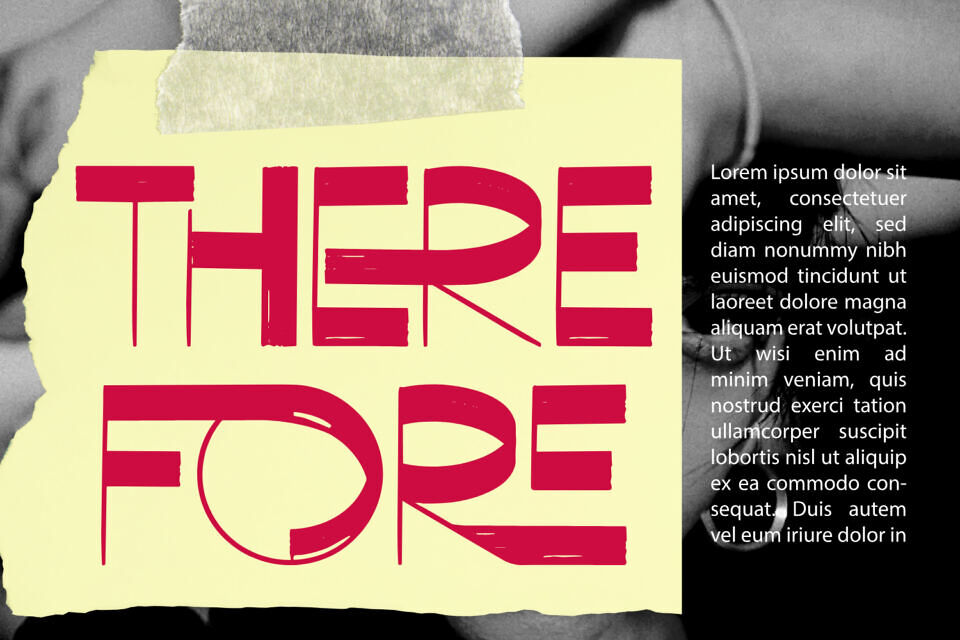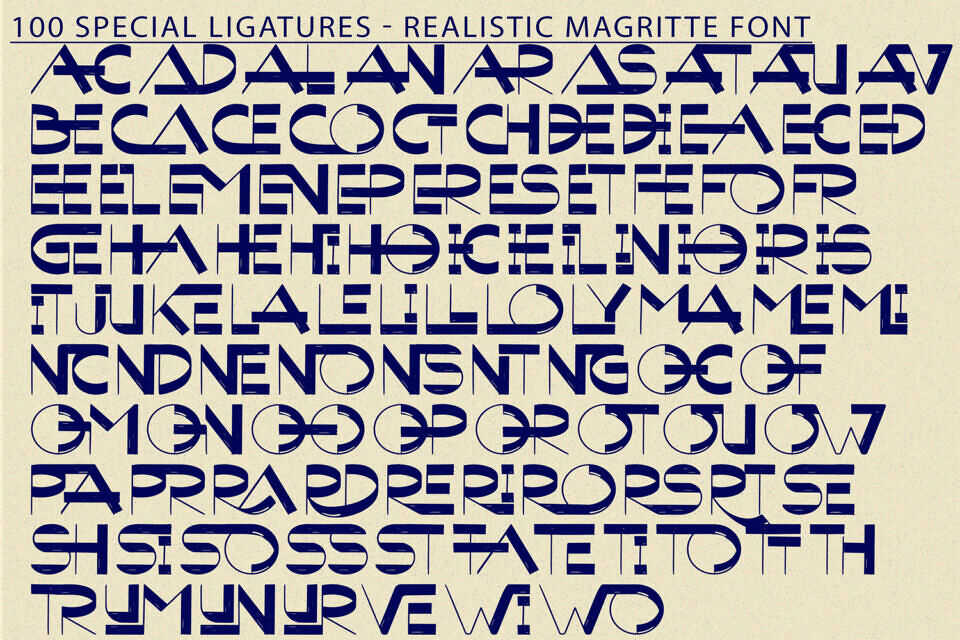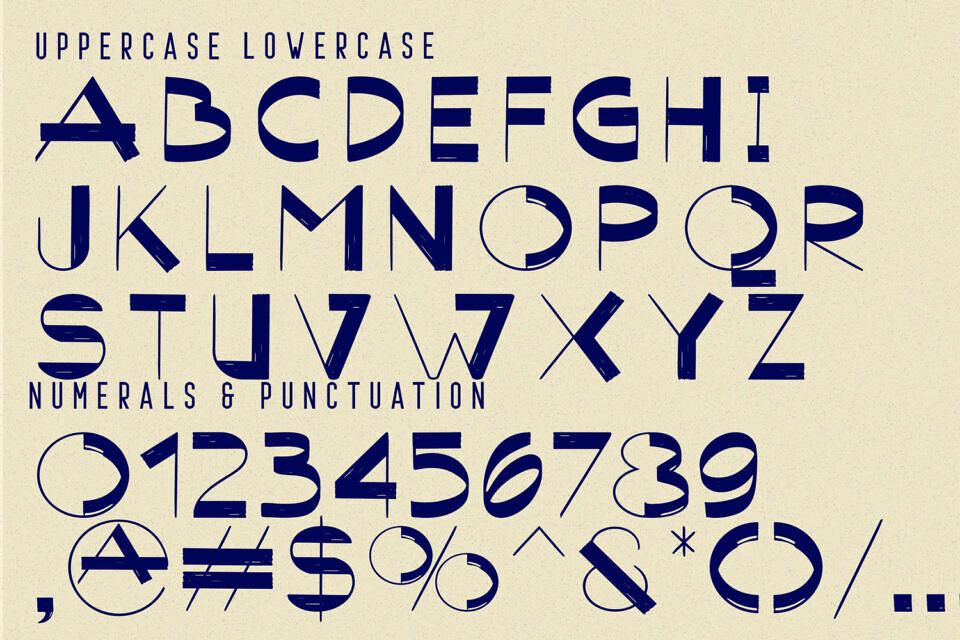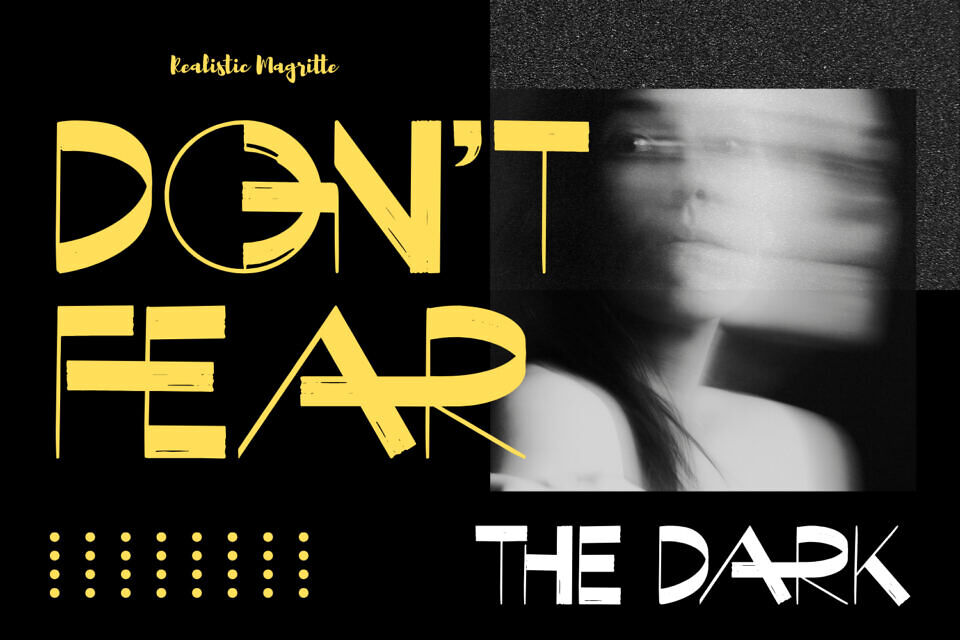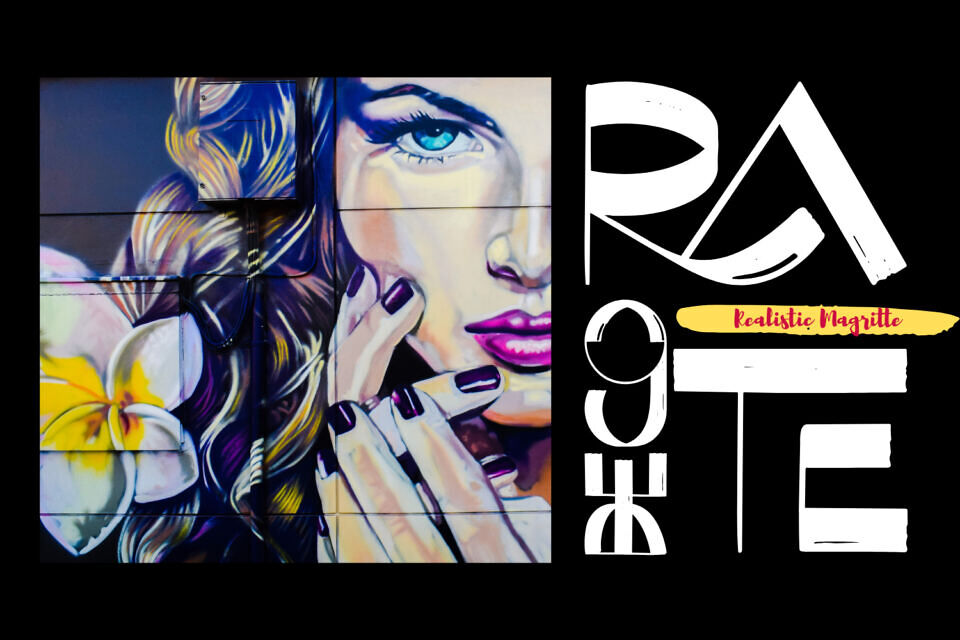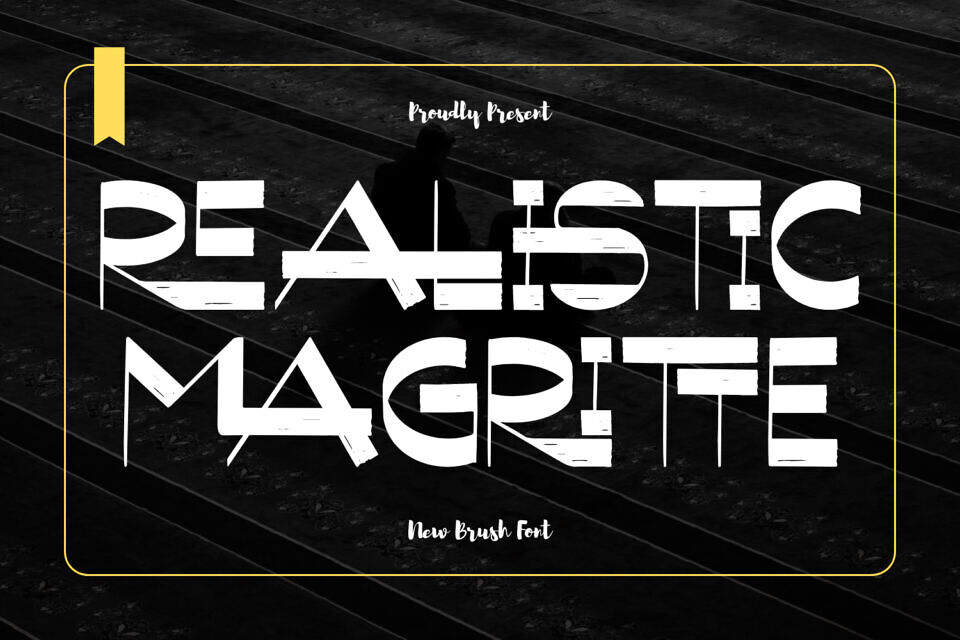
Realistic Magritte Font
Realistic Magritte is a striking geometric brush display typeface infused with an expressive distressed texture. Its bold, angular letterforms are inspired by modernist geometry, while the rough, hand-crafted grunge details add an organic and rebellious edge.
The result is a perfect balance between structure and imperfection — ideal for projects that demand a unique, eye-catching identity. Whether you’re designing a movie poster, an album cover, an urban fashion brand, or experimental artwork, Realistic Magritte brings a raw yet refined aesthetic that stands out in any creative context.